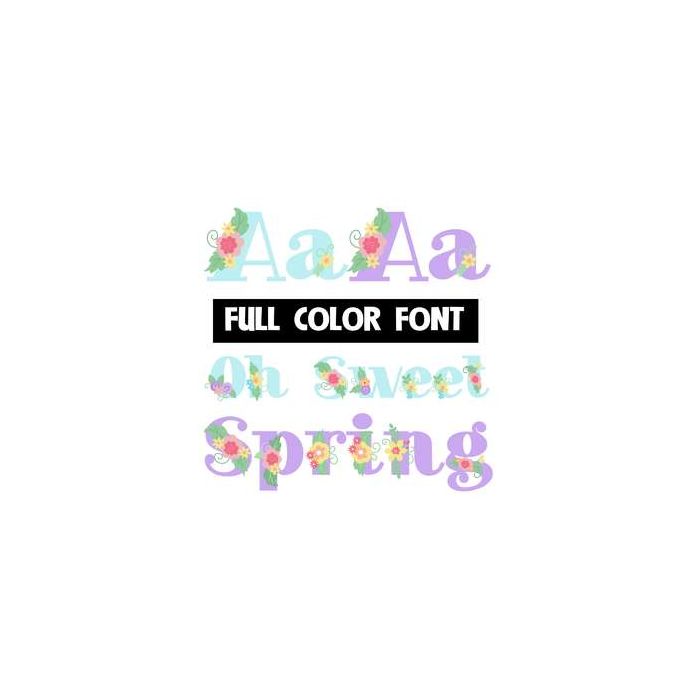
This full-color font features spring-colored flowers on blue lettering. There is an alt case of lavender lettering you can access through your system's character map or Silhouette's glyph map.